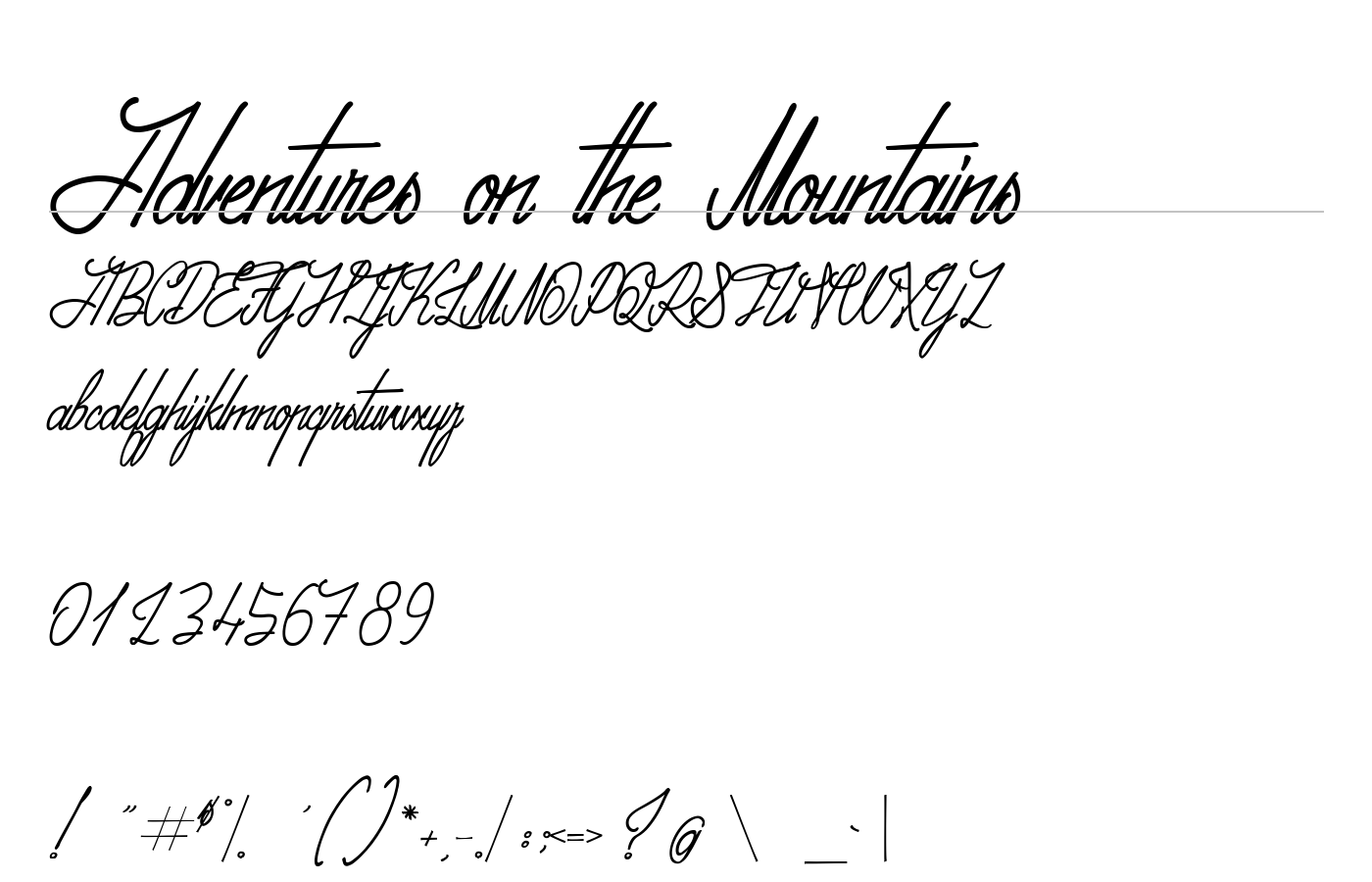
Adventures on the Mountains is a delicate and elegant script font with a tall, narrow structure and flowing, connected letterforms. Its fine, consistent strokes and graceful curves give it a vintage and sophisticated feel, perfect for adding a touch of classic charm to invitations, branding, and headlines. This font works well where a refined, personal touch is needed, such as luxury packaging, fashion logos, and editorial design.
Adventures on the Mountains Font
About Adventures on the Mountains Font
| Designer | Maelle K |